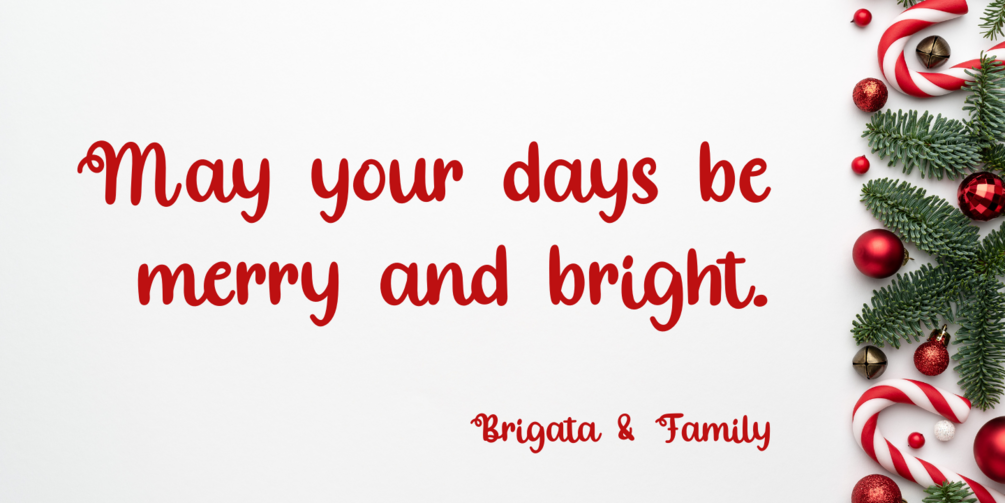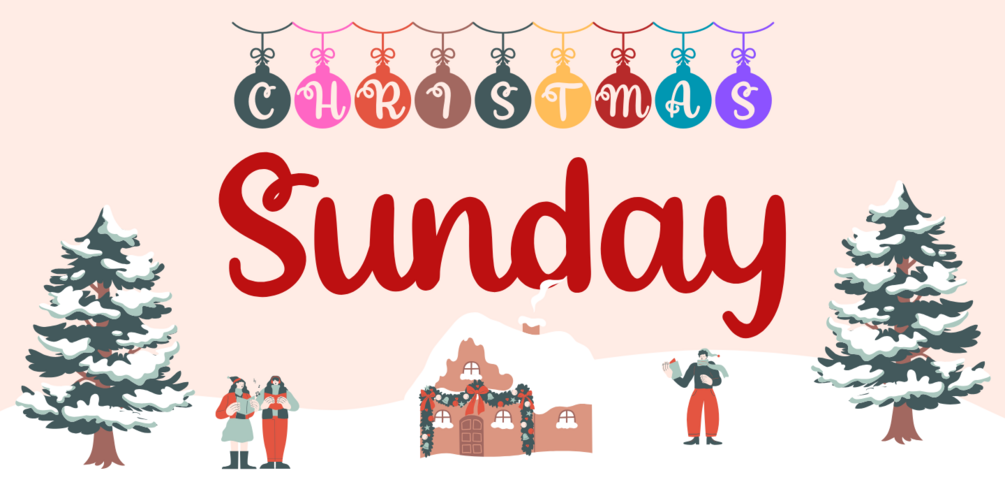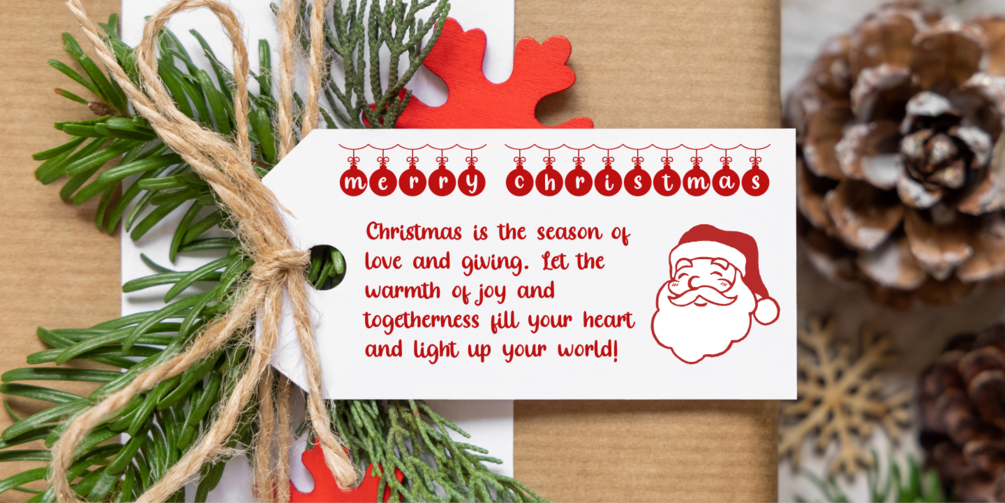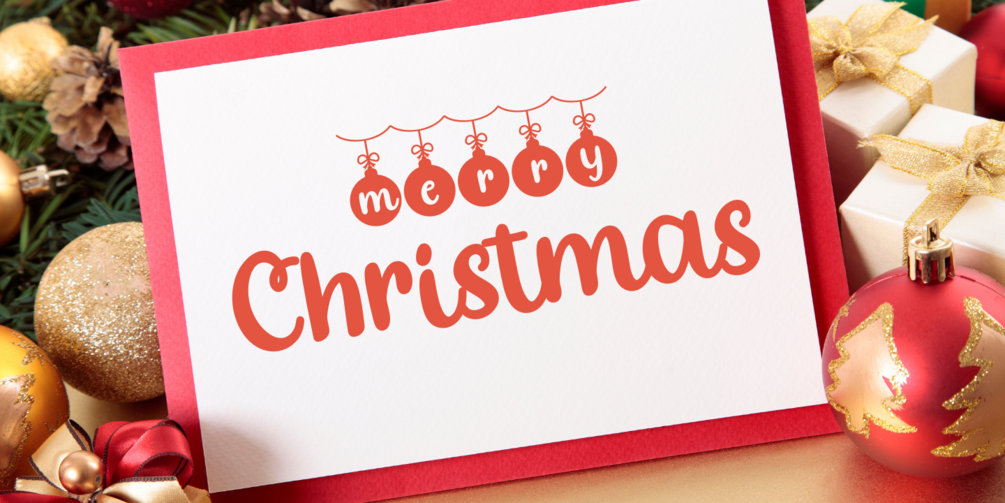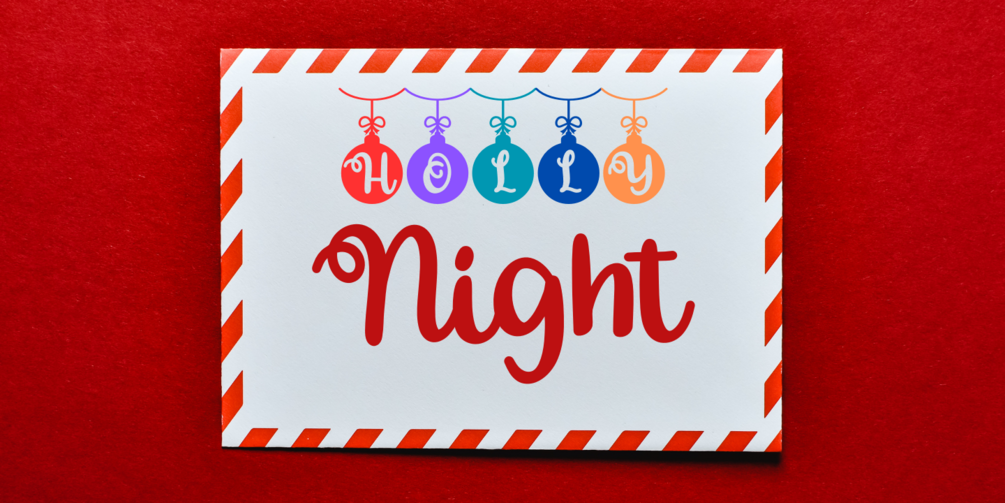
Bt Christmas Sunday
Indulge in the festive spirit with Bt Christmas Sunday. This unique duo font combines the warmth of handwritten typography with the joy of Christmas ornaments. Its versatile design makes it perfect for everything from greeting cards to holiday packaging